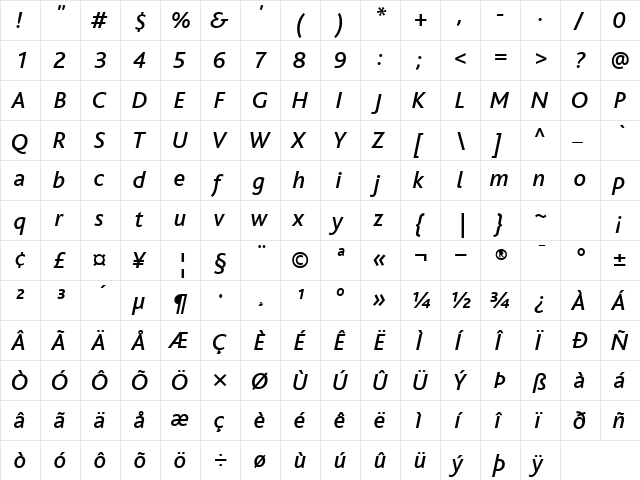
BlissMediumItalic Regular
Design Context for BlissMediumItalic Typeface
BlissMediumItalic offers clean, dependable letterforms without strong stylistic allegiance, making it a practical choice for designers who need flexibility. The slanted form adds forward momentum and visual energy.
Pro Tip: Try BlissMediumItalic for annotation and caption copy alongside an upright companion — the contrast in angle creates a dynamic but ordered typographic system.